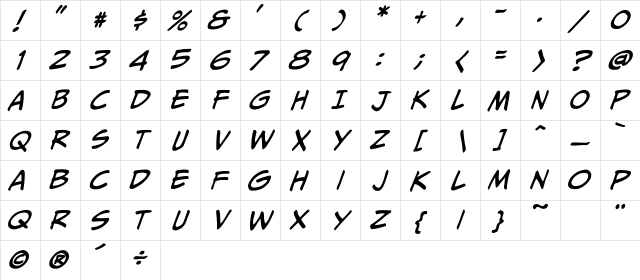
CCMeanwhile Medium Italic
CCMeanwhile Family
CCMeanwhile Medium Italic
Design Context for CCMeanwhile
CCMeanwhile is a composed and adaptable typeface that performs quietly and consistently across a wide range of design contexts. The slanted form adds forward momentum and visual energy.
Pro Tip: Use CCMeanwhile for emphasis, pull quotes, and subheadings where its slanted energy can add rhythm to the layout.